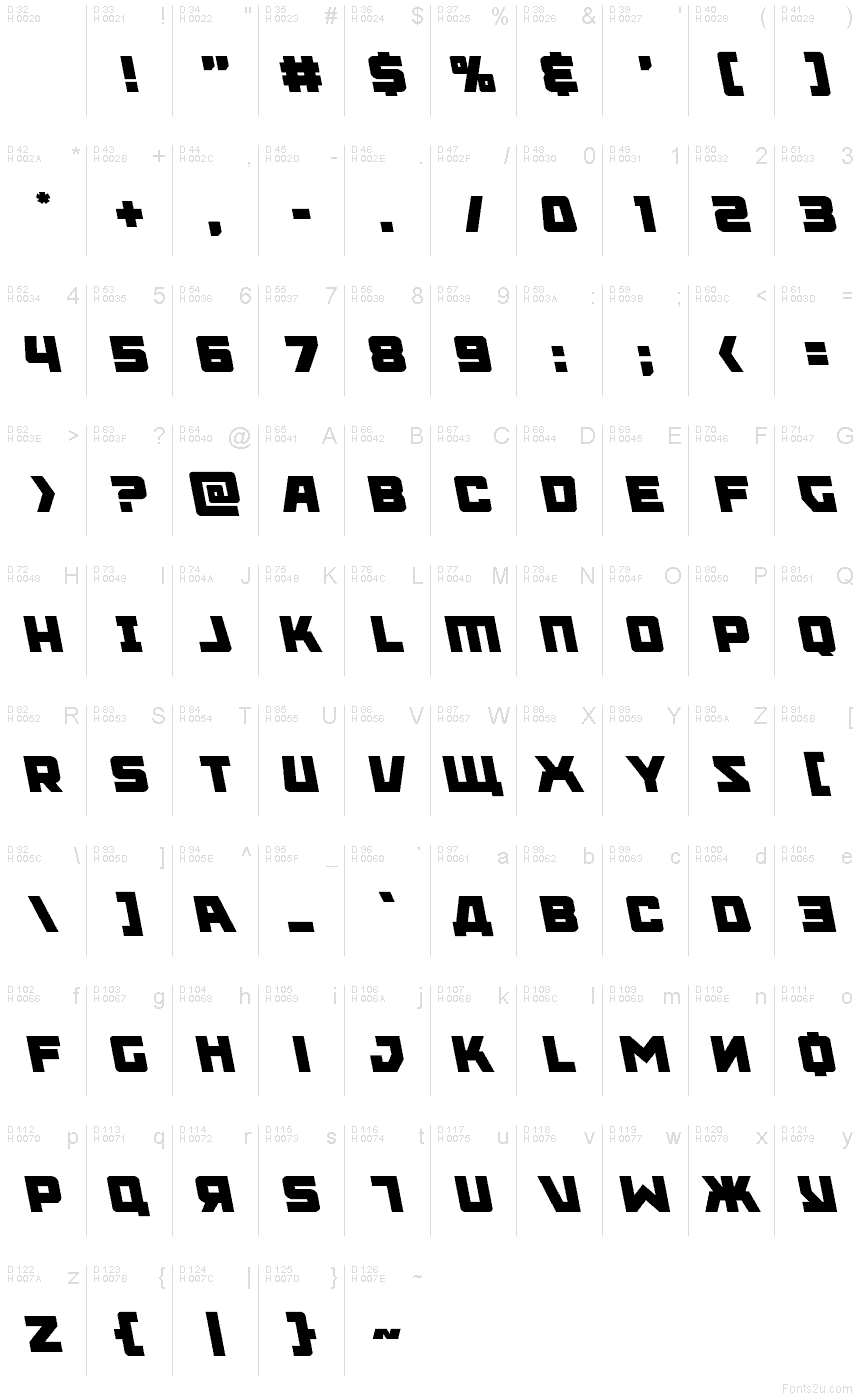
Kremlingrad Semi-Leftalic
Kremlingrad Semi-Leftalic font by Iconian Fonts is a free faux‑Russian display font. Built in the Kremlingrad family’s hard-edged geometry, its defining move is the left‑leaning slant that feels like a banner caught in a strong crosswind. Heavy verticals, squared counters, and chiseled cuts create a mechanical, poster‑press rhythm that commands attention without turning messy at large sizes.
Using Kremlingrad Semi-Leftalic, headlines snap with a gritty, Constructivist punch—great for game titles, esports graphics, festival posters, action movie promos, theme packaging, and bold social banners. The compact spacing keeps words dense and impact-heavy, so short phrases land fast. Pair this free font with a clean, neutral grotesque for body copy and let the blocky forms lead at oversized display scale.